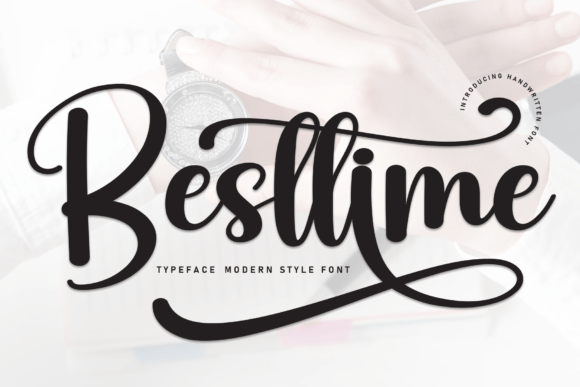
Unleash the enchanting allure of Besttime Font, a mesmerizing script font crafted with intricate elegance. Designed to ignite your creativity and transform your digital designs into captivating masterpieces, Besttime Font is the ultimate choice for those seeking a font that speaks volumes.
Journey through the realm of boundless creativity with Besttime Font, a script font that weaves a spell of visual enchantment. Let the graceful curves and delicate strokes of each letter dance across your designs, captivating your audience with their timeless beauty. Whether you're crafting enchanting logos, designing breathtaking social media posts, or adding a touch of elegance to your website, Besttime Font is your trusted companion in the pursuit of design excellence.
With Besttime Font, the possibilities are endless. Let your imagination soar as you explore the infinite creative horizons that await. From whimsical invitations to stunning branding materials, Besttime Font effortlessly elevates your designs, leaving an unforgettable impression on all who encounter them.
But Besttime Font's charm extends far beyond its aesthetic appeal. This versatile font family caters to a myriad of design needs, effortlessly adapting to diverse projects and styles. Whether you're a seasoned graphic designer or just starting your creative journey, Besttime Font is the perfect addition to your design arsenal.
Discover the myriad ways to harness the magic of Besttime Font:
Create eye-catching logos that exude elegance and sophistication.
Design social media posts that sparkle with personality and charm.
Elevate your website's visual appeal with captivating typography.
Craft enchanting invitations, greeting cards, and other printed materials.
Explore the limitless possibilities of DIY projects, adding a personal touch to home décor, apparel, and accessories.
Embrace the boundless creativity that Besttime Font offers. Download it today and let your designs flourish with elegance, sophistication, and a touch of magic.